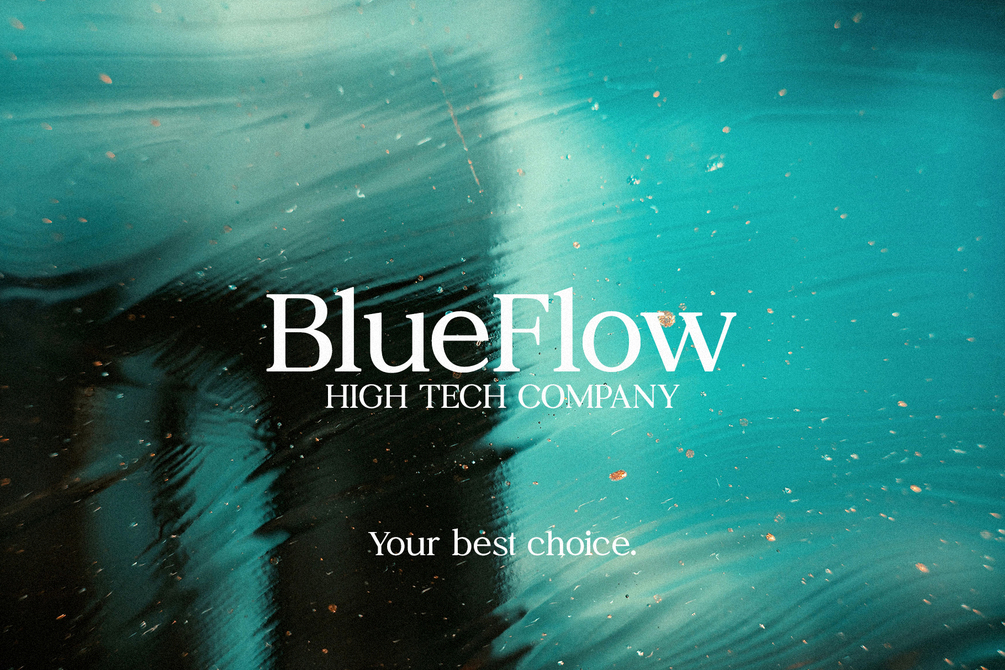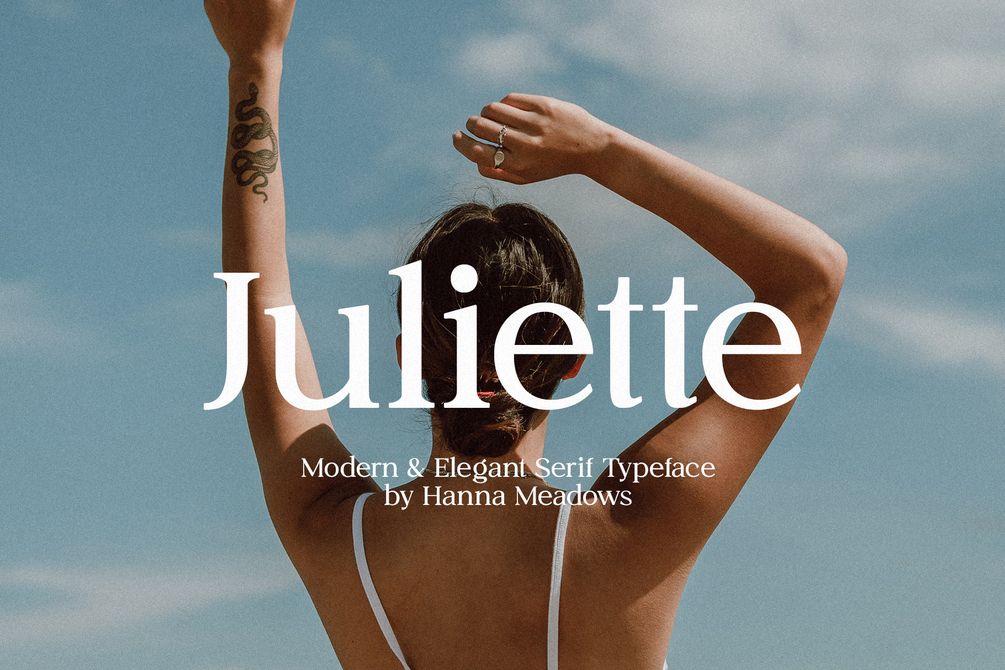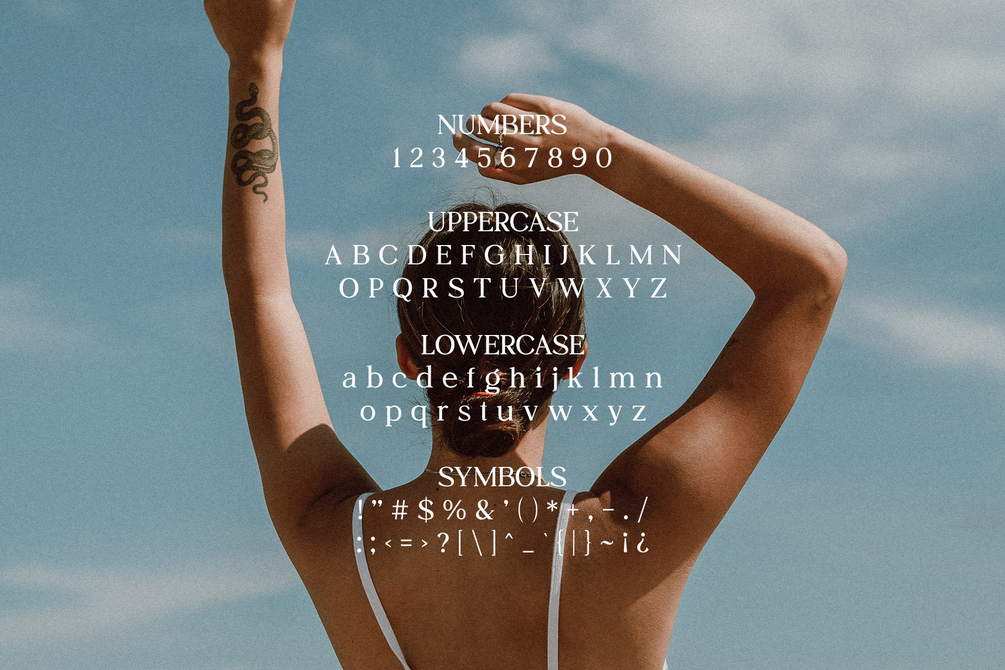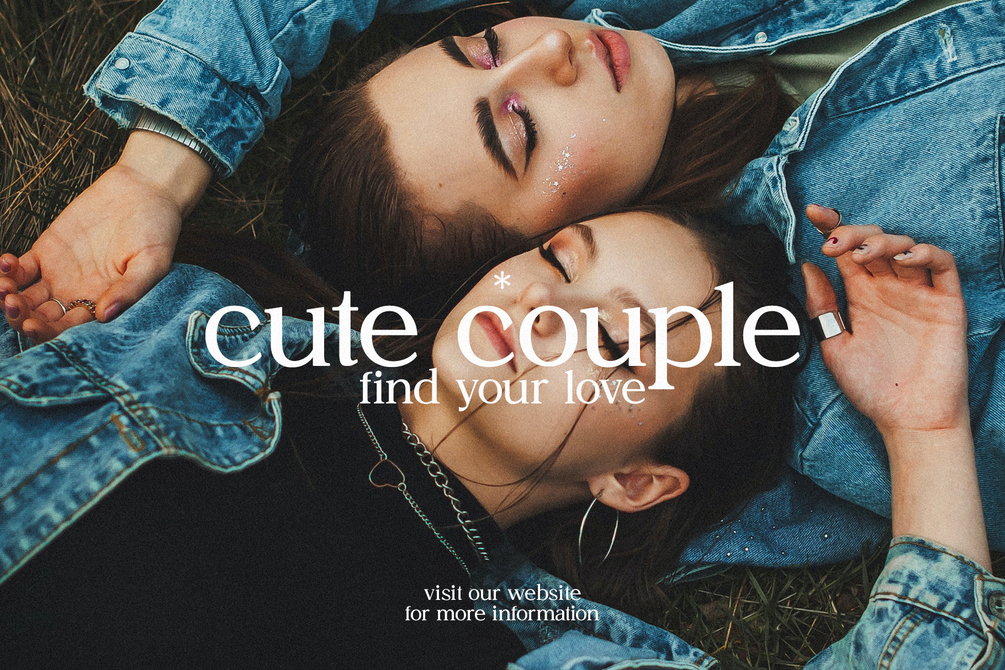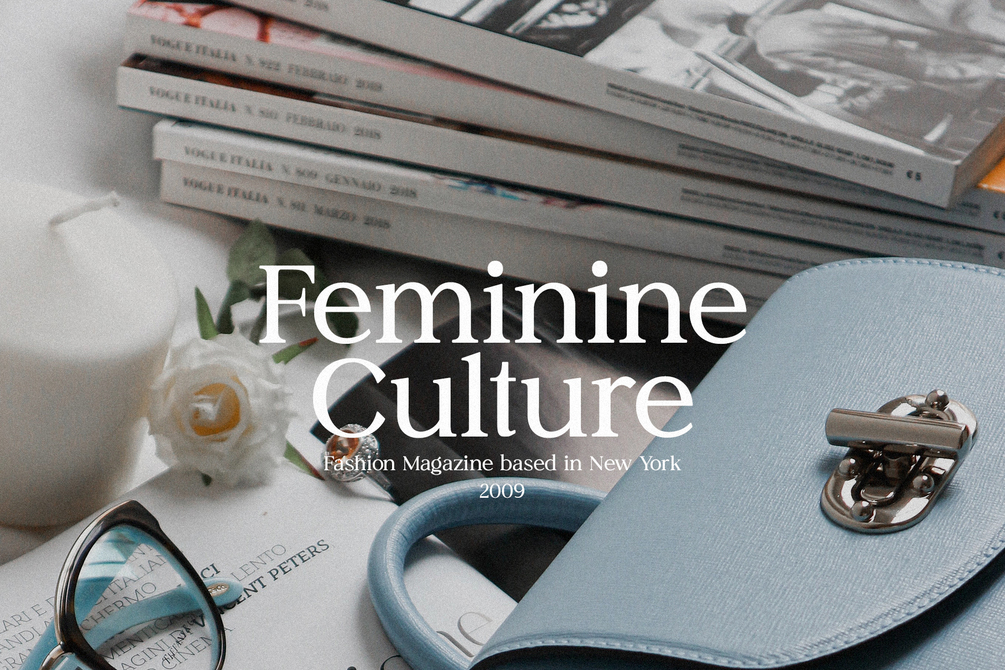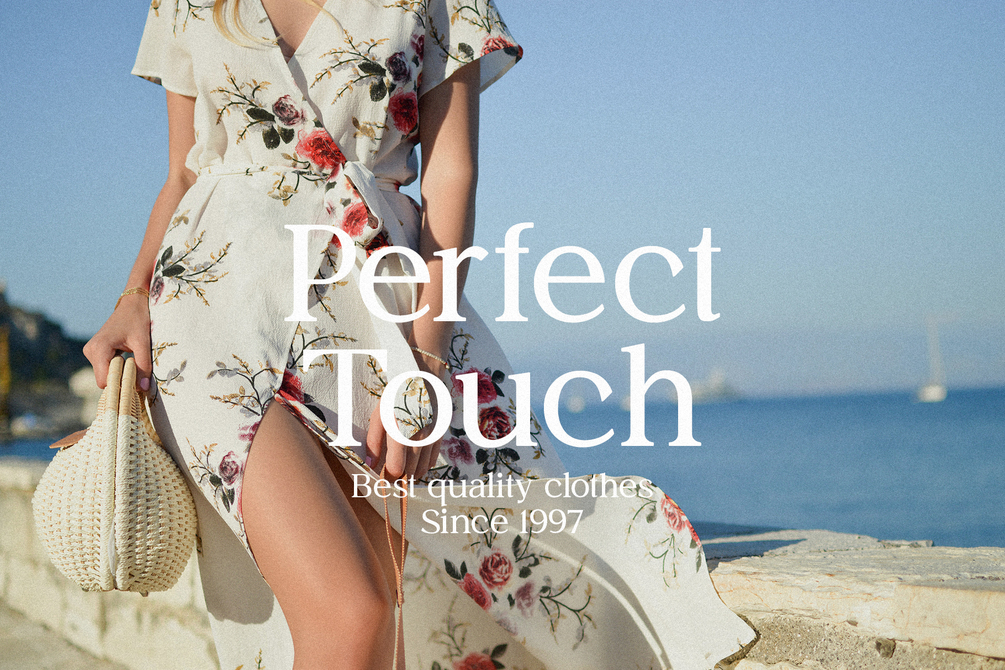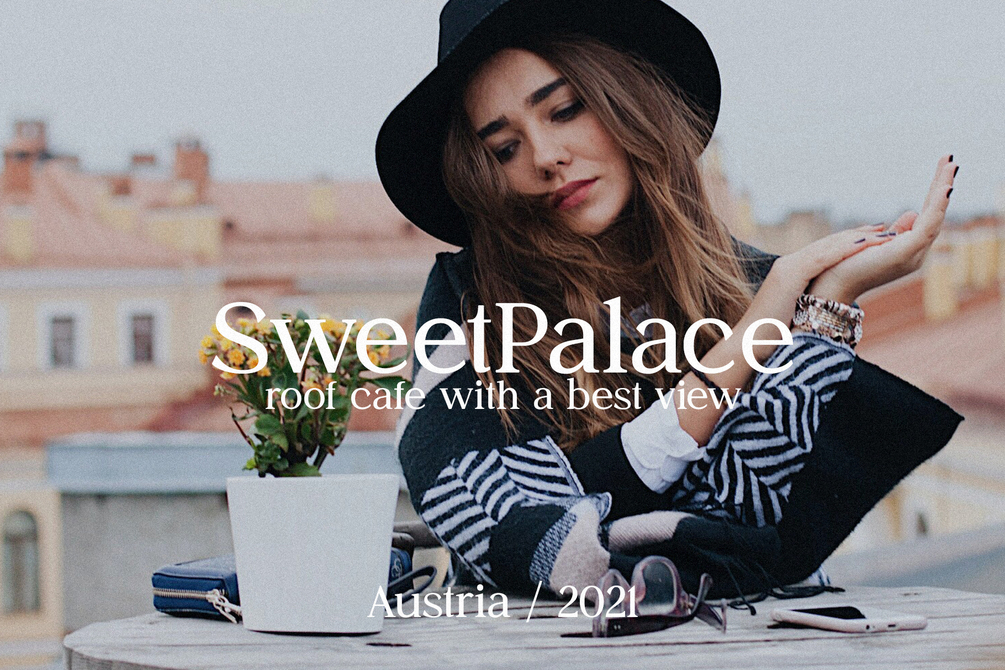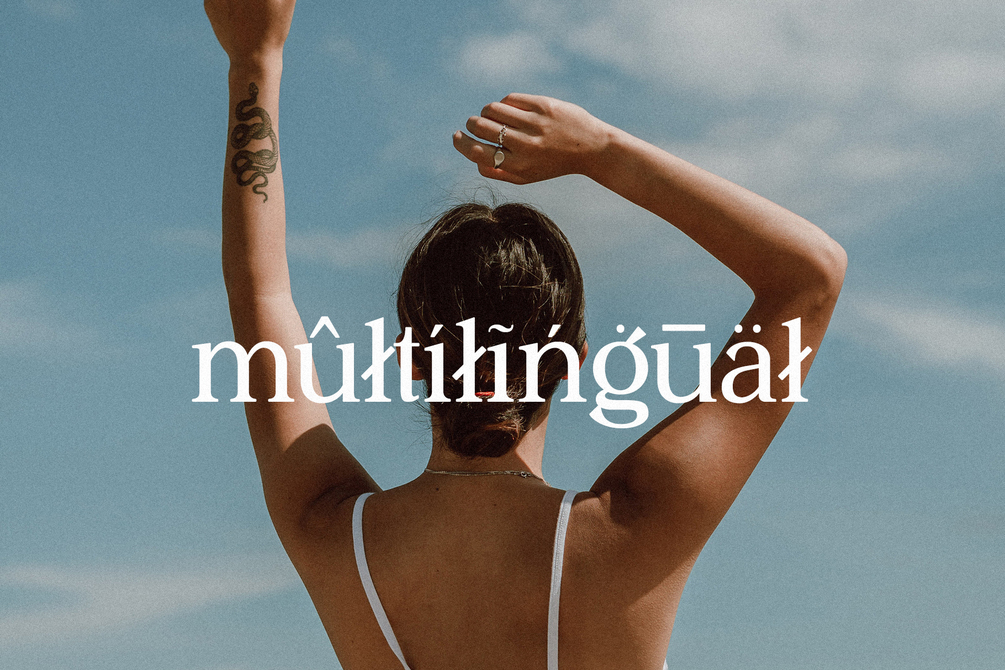
Juliette Modern & Elegant Serif Typeface
Juliette is a modern & elegant serif typeface. This font is perfect for everything, logos, t-shirt design, magazine or website headers, etc. Juliette features multilingual support, over 250+ glyphs, uppercase & lowercase letters, numbers & symbols.